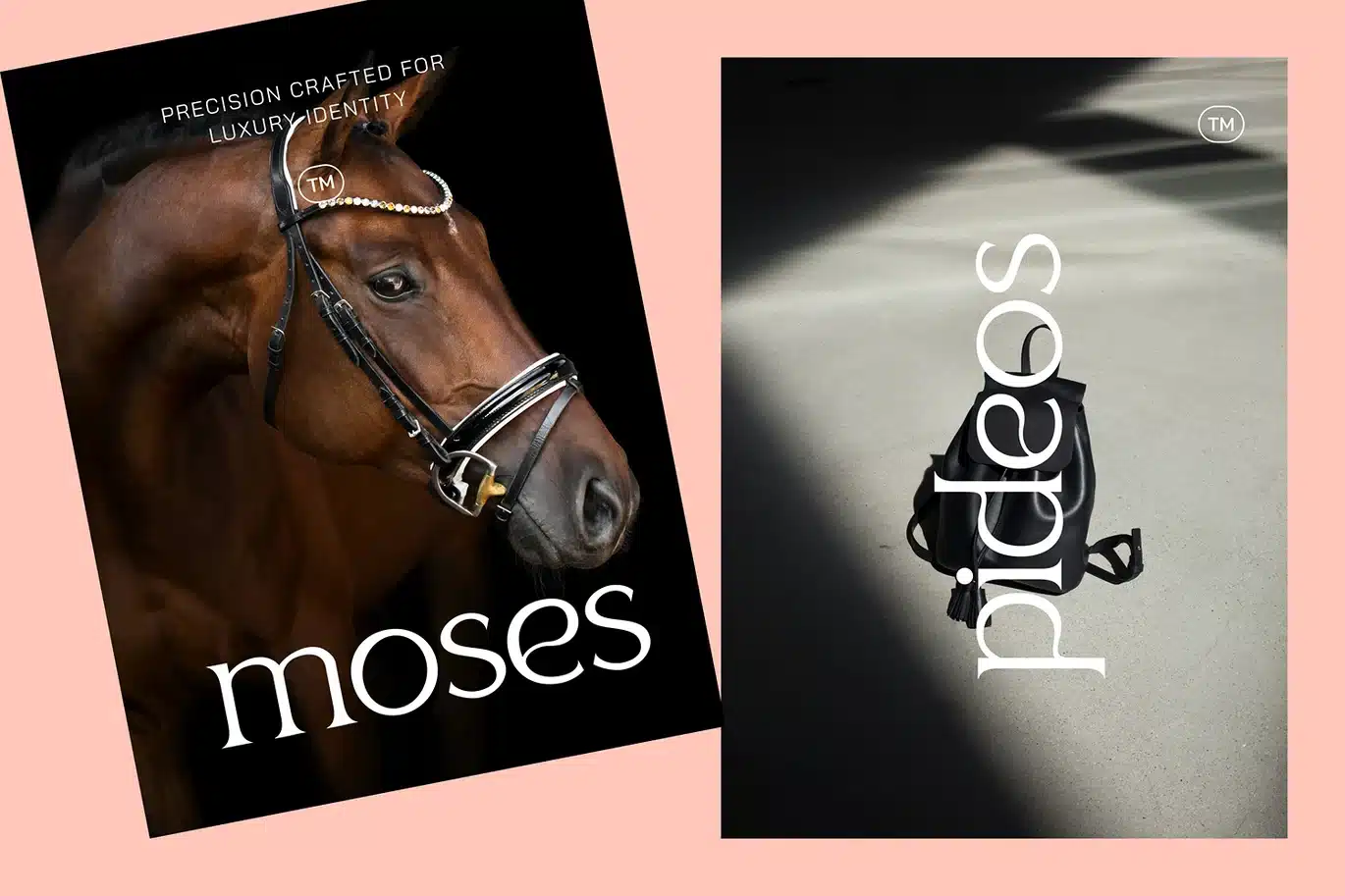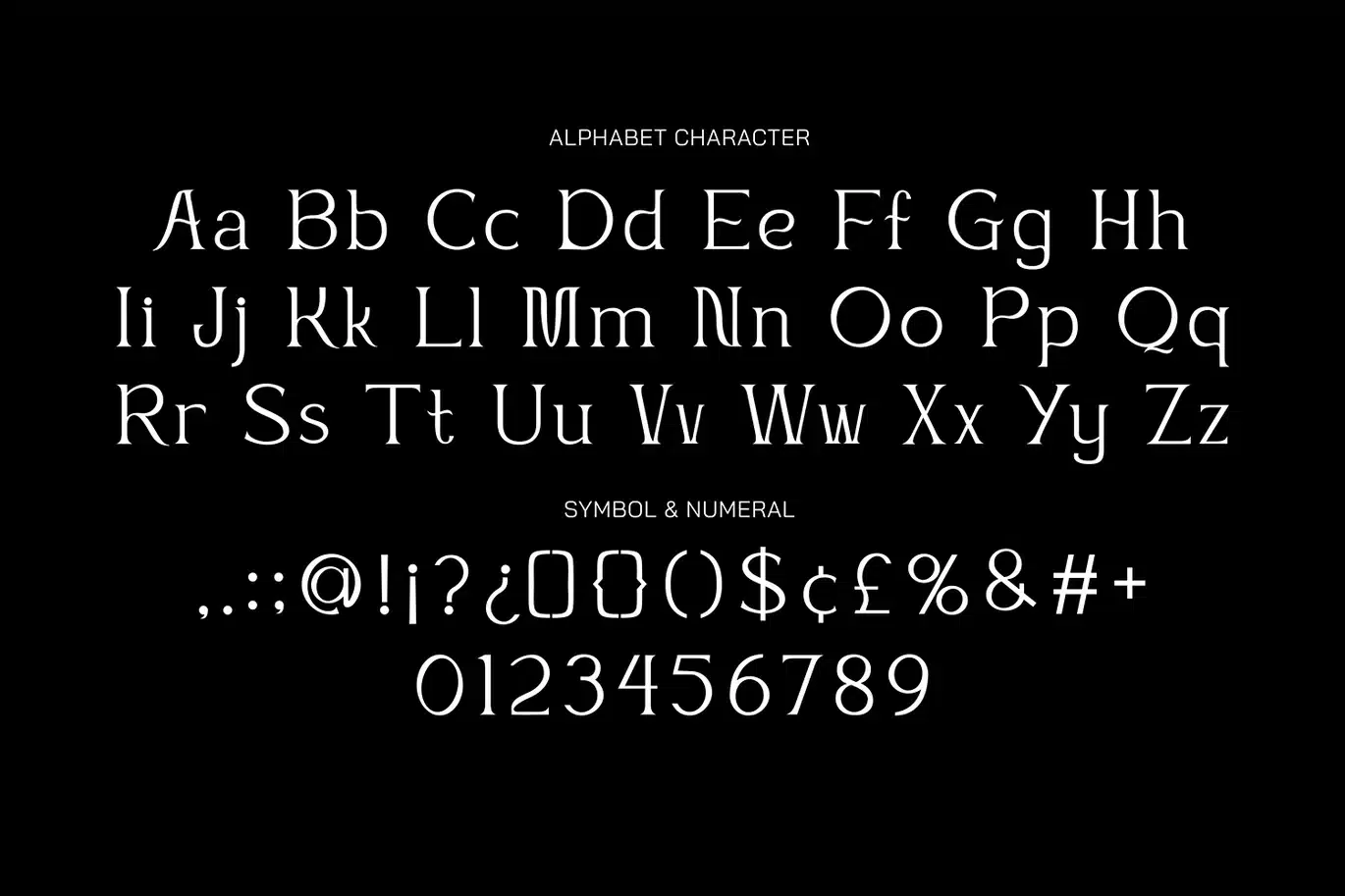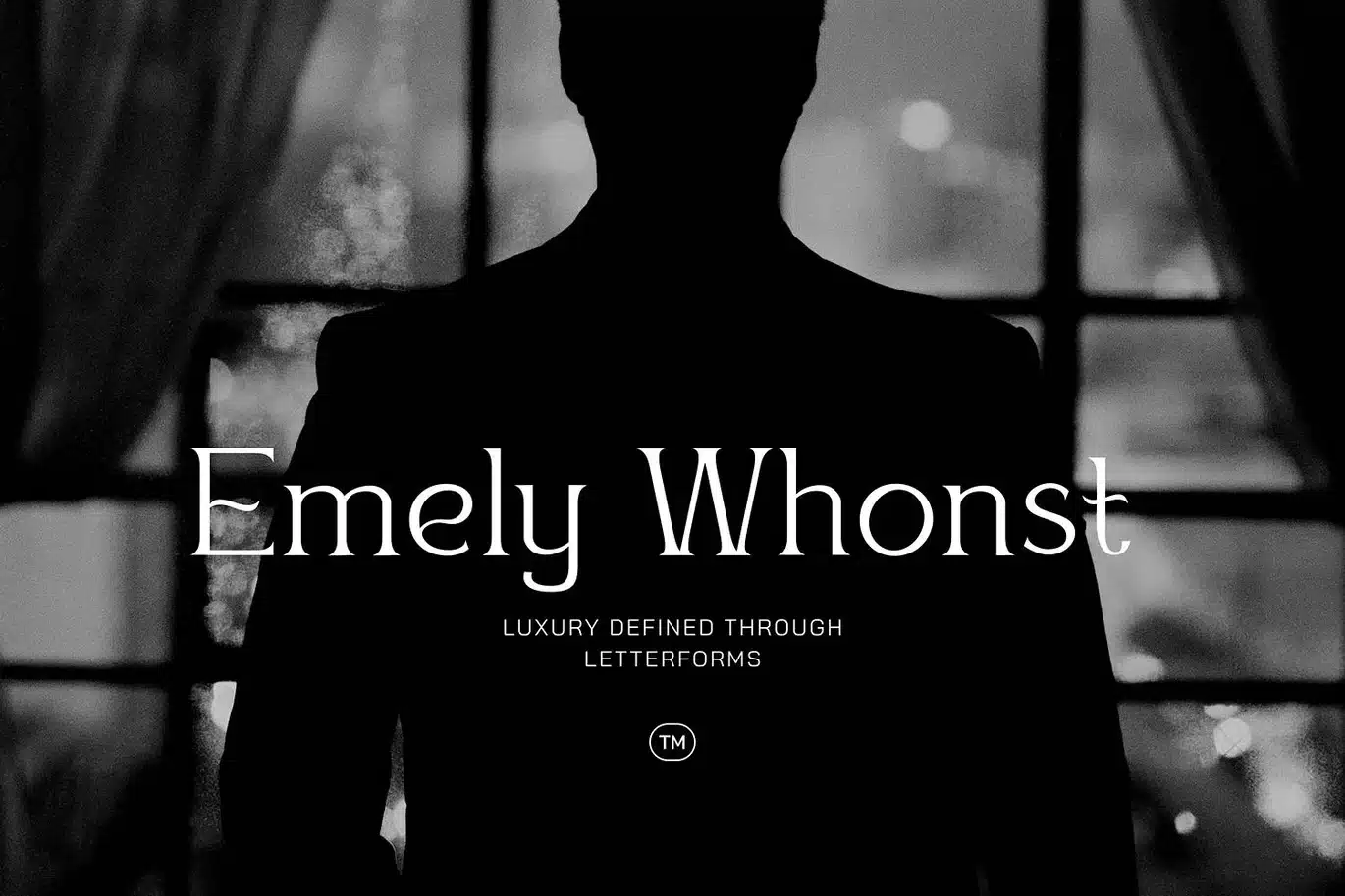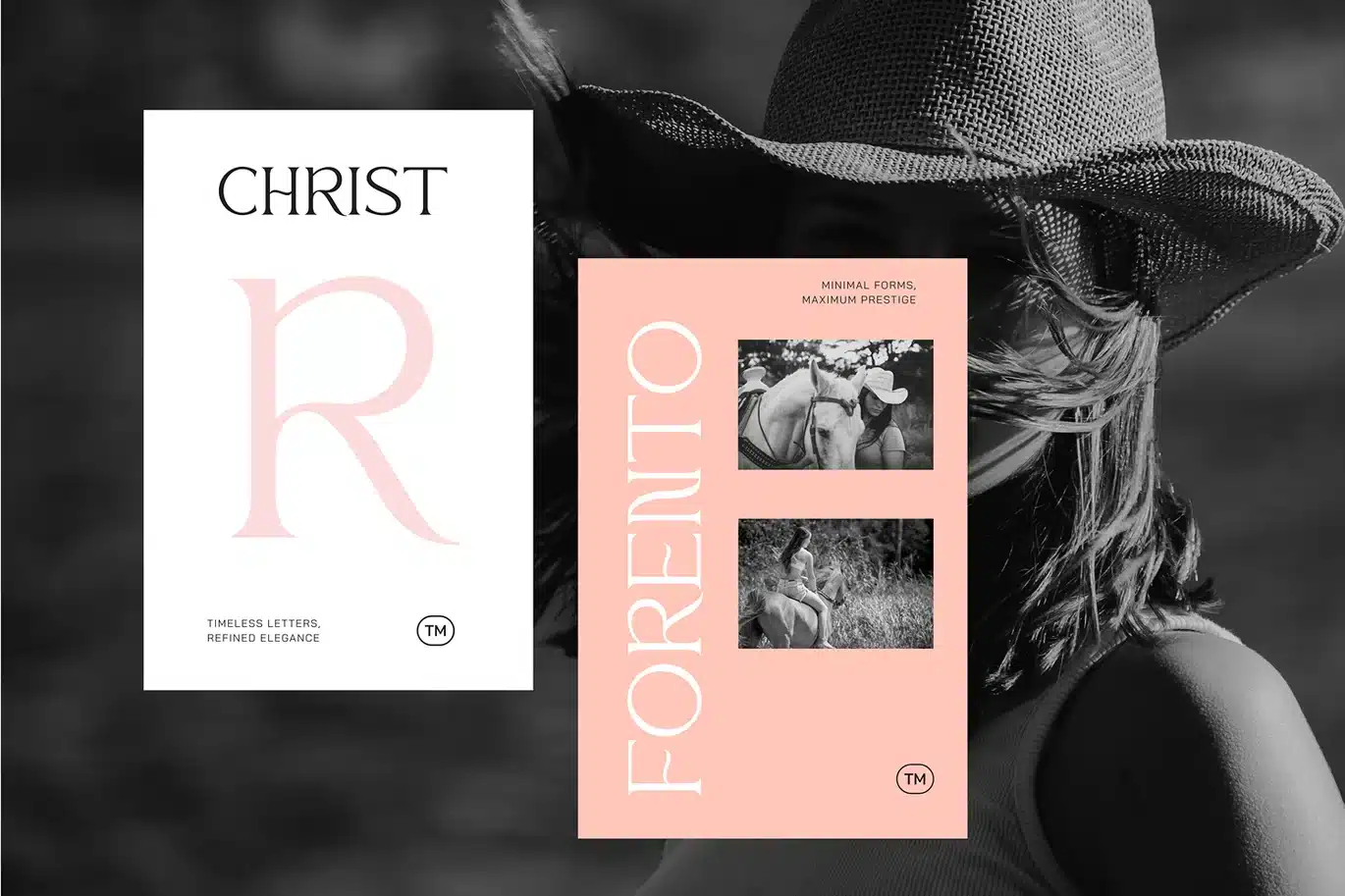
Gobela – Logo Font
Gobela font is a refined serif typeface designed to bring a sense of luxury, elegance, and sophistication to any project. Its graceful curves and high-contrast strokes create a timeless aesthetic, making it an excellent choice for logo design, fashion branding, and premium corporate identities. With its delicate yet confident character, Gobela font captures attention while maintaining a clean and minimal visual appeal.
Perfect for display use, Gobela font shines in headlines, editorials, and high-end visual compositions. Its stylish letterforms blend classic serif influence with a modern touch, allowing it to adapt beautifully across both print and digital media. Whether used for luxury branding or creative design projects, Gobela font delivers a polished and distinctive look that elevates any visual identity.